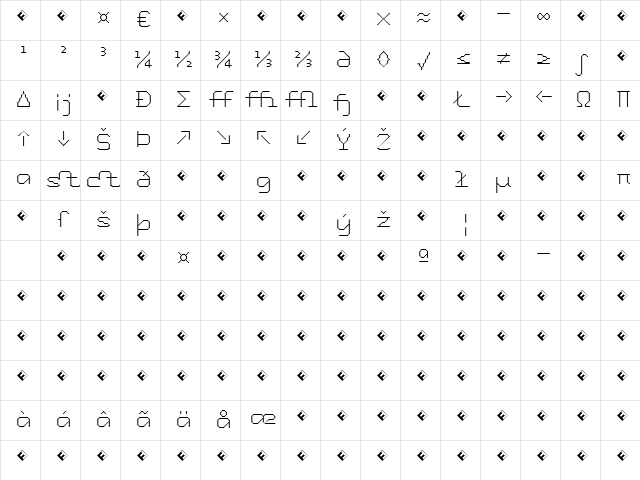
Tronic-LightExpert Regular
| Foundry | Hyun Cho, Sung Min Choi; published by FontShop International for the FontFont Library |
| Designer | Hyun Cho, Sung Min Choi |
Design Context for Tronic-LightExpert Typeface
Tronic-LightExpert is a composed and adaptable typeface that performs quietly and consistently across a wide range of design contexts. Its slender proportions lend an understated elegance to any composition.